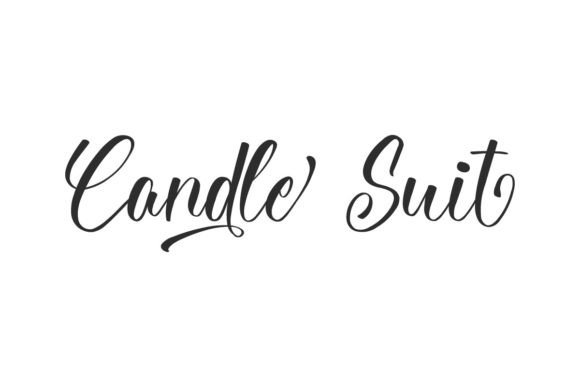
Unleash the Enchantment of Candle Suit Font: A Calligraphic Masterpiece for Spa Serenity
Immerse yourself in the world of tranquility and relaxation with Candle Suit Font, a captivating script font that evokes the soothing ambiance of a luxurious spa. Step into a realm of serenity where your designs radiate elegance and grace, infused with the timeless beauty of calligraphy.
Candle Suit Font is a visual symphony, a harmonious blend of thick and thin strokes that create a mesmerizing rhythm. Its fluid lines flow effortlessly, evoking the gentle caress of a brush against paper. This font possesses an inherent elegance that elevates your designs, transforming them into works of art.
Experience the versatility of Candle Suit Font, a font that effortlessly adapts to a myriad of design projects. Whether you're crafting enchanting billboards that capture attention from afar, creating sophisticated business cards that leave a lasting impression, or designing headers that exude professionalism, Candle Suit Font rises to the occasion.
Let your imagination soar as you explore the endless possibilities of Candle Suit Font. Create labels that enhance your products with a touch of sophistication, design magazine catalogs that showcase your content with allure, or craft stationery that radiates charm and personality. This font breathes life into your words, transforming them into captivating expressions of creativity.
Step into the world of Candle Suit Font and unlock a treasure trove of design opportunities. Websites, social media graphics, and marketing materials all come alive with a touch of this font's magic. Its versatility knows no bounds, allowing you to weave your creative vision into any project.
Candle Suit Font is more than just a font; it's an experience, a journey into the realm of visual delight. It's a font that speaks to the senses, evoking emotions of tranquility, harmony, and timeless beauty. It's a font that transforms your designs into masterpieces, leaving an indelible mark on the hearts and minds of your audience.